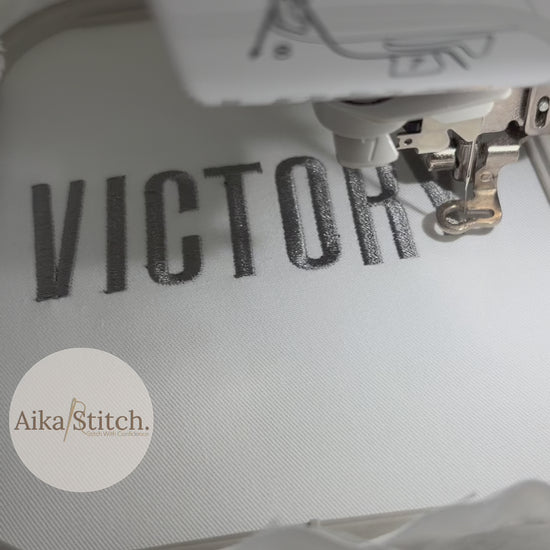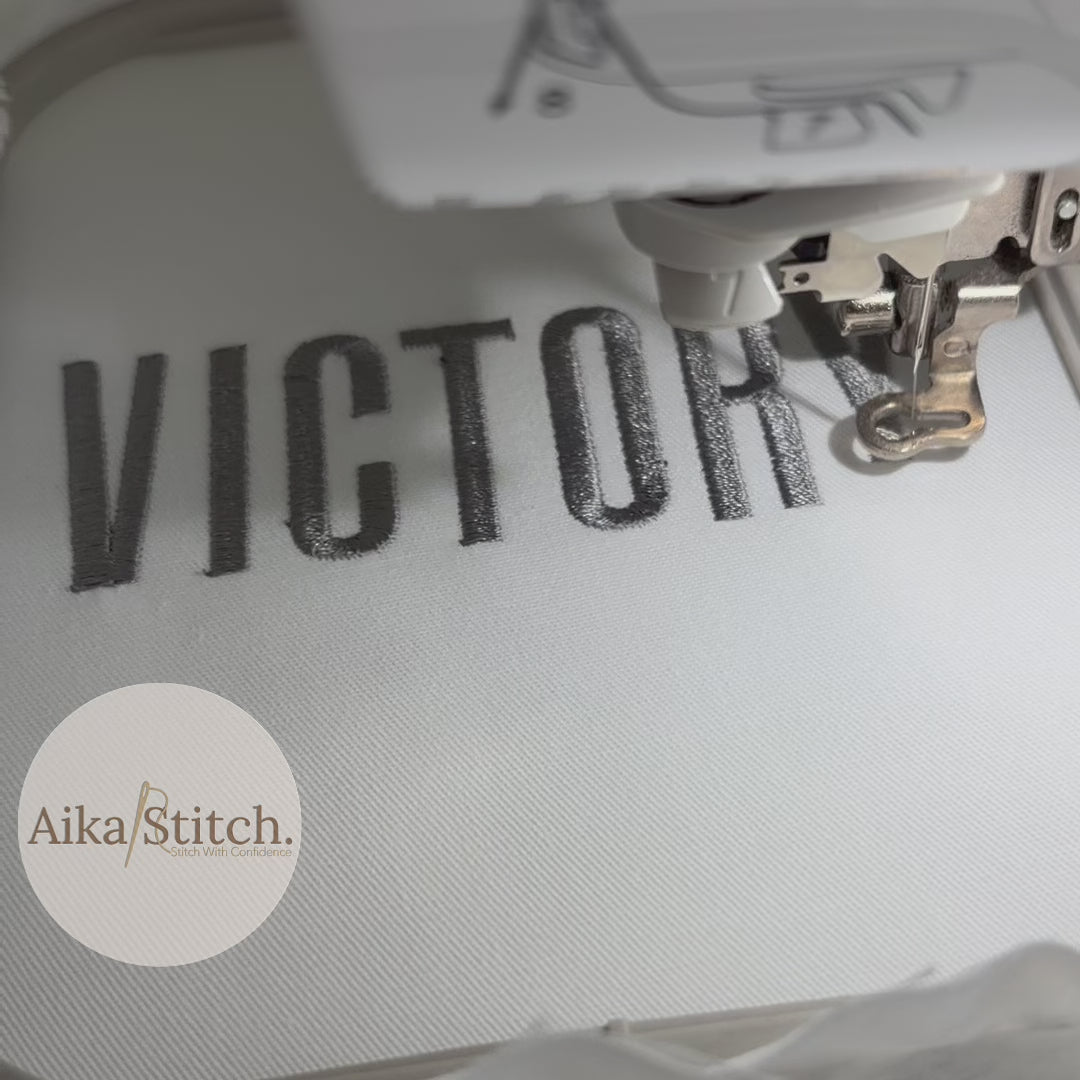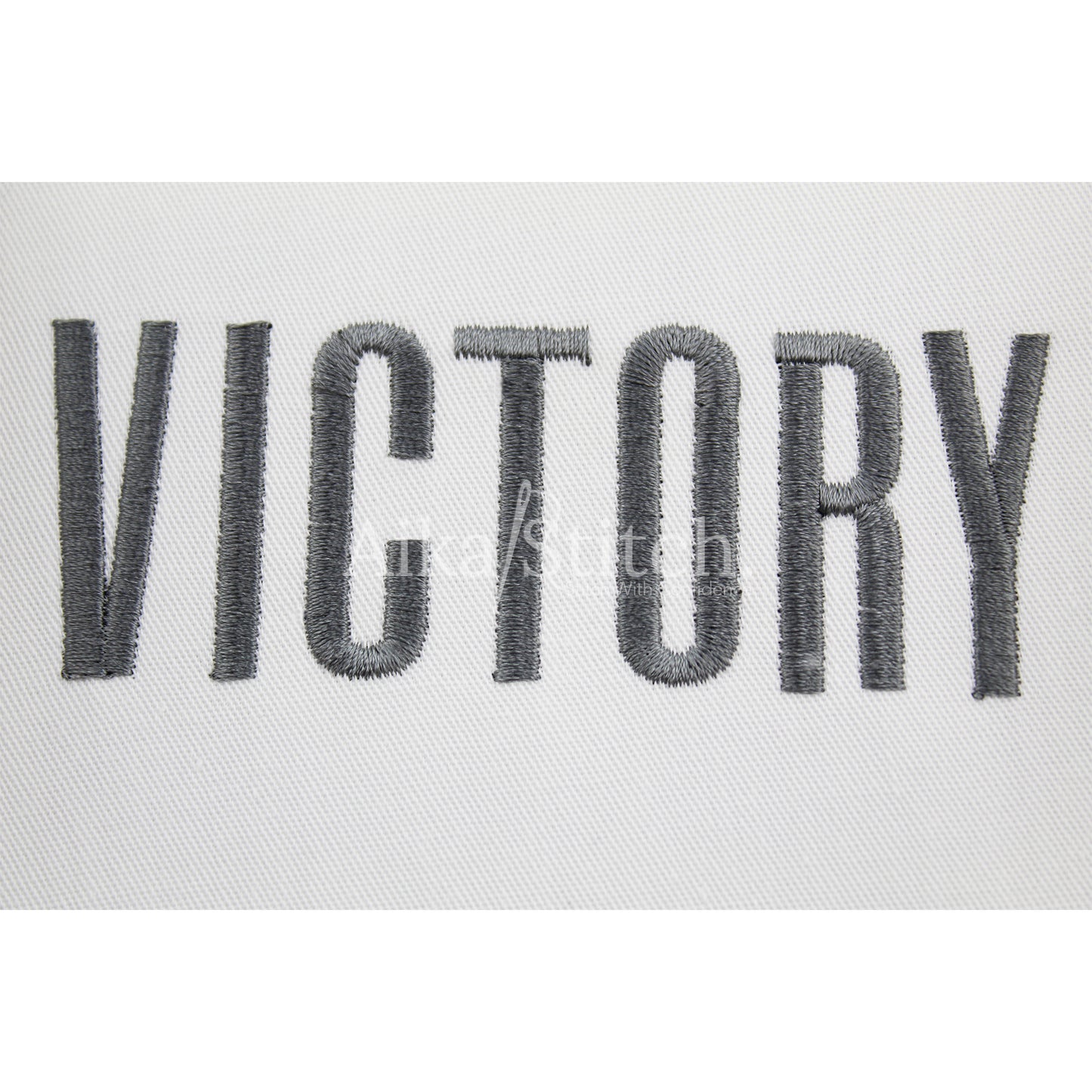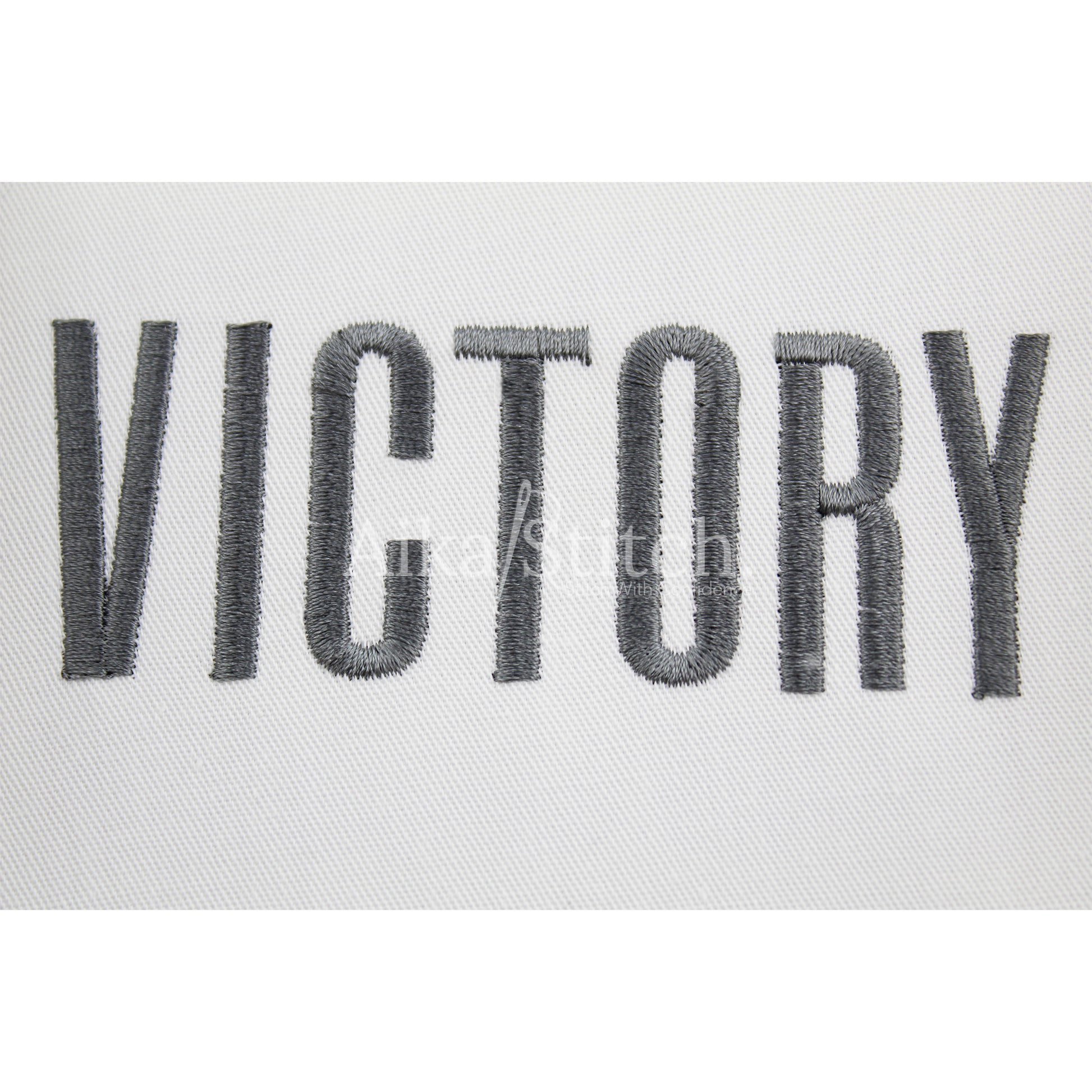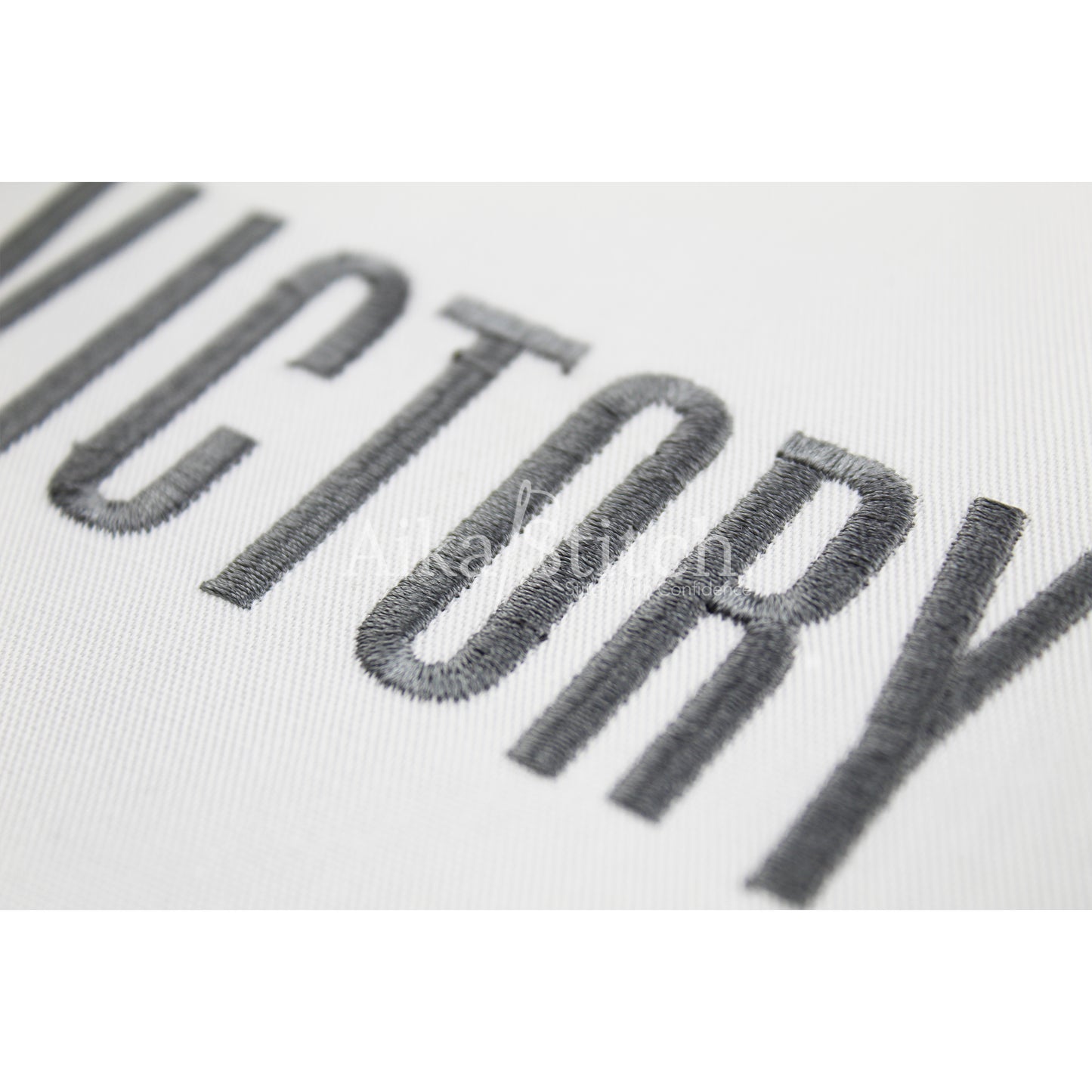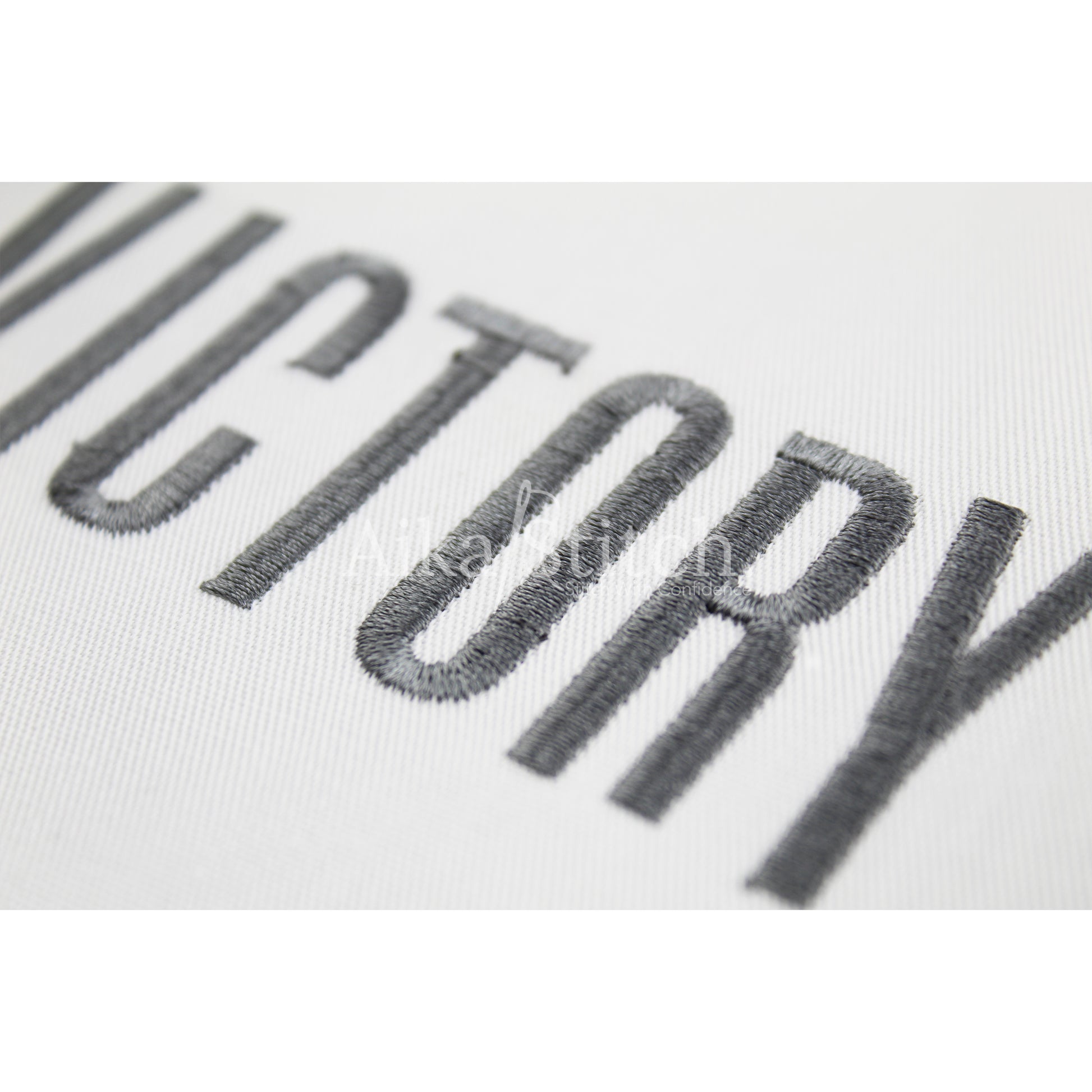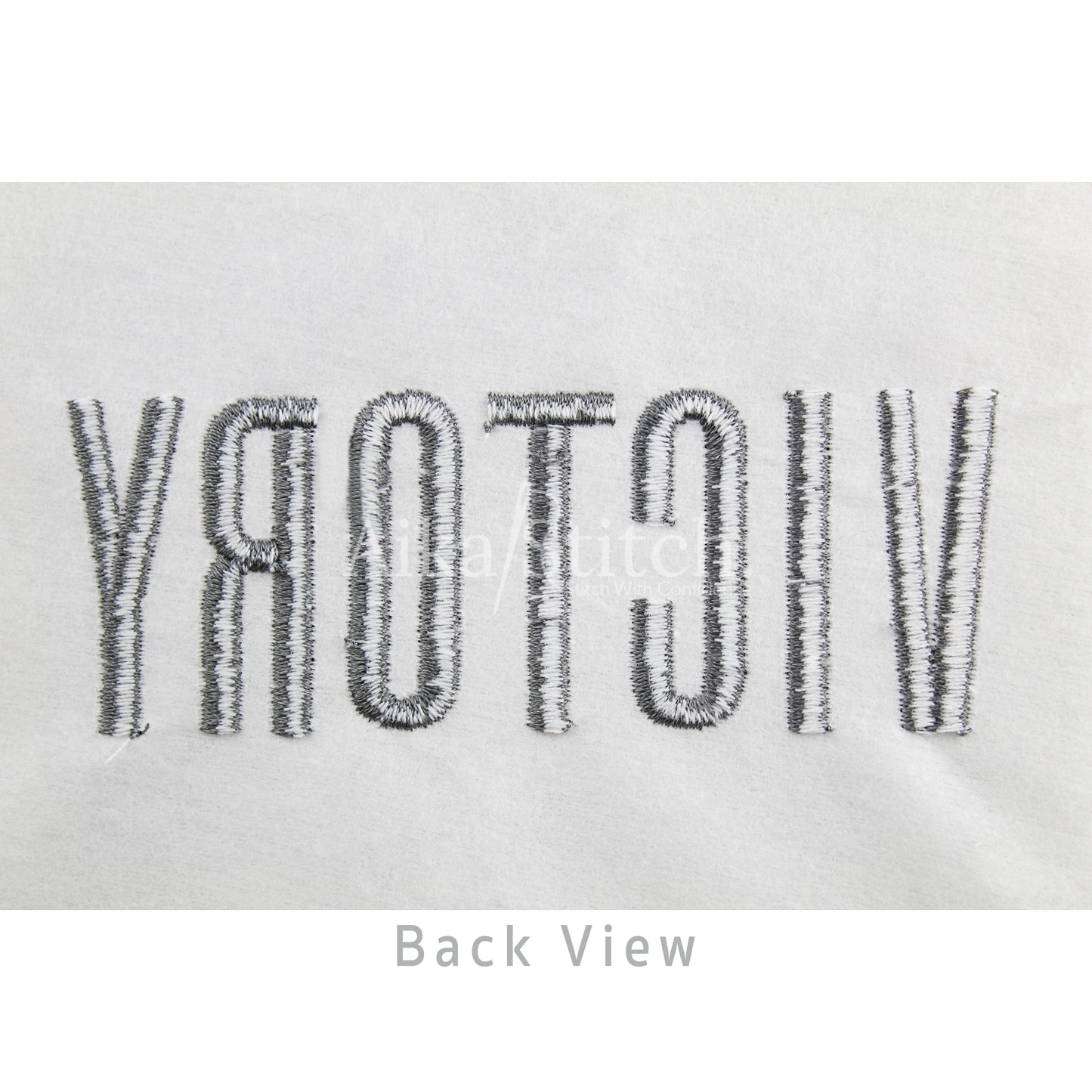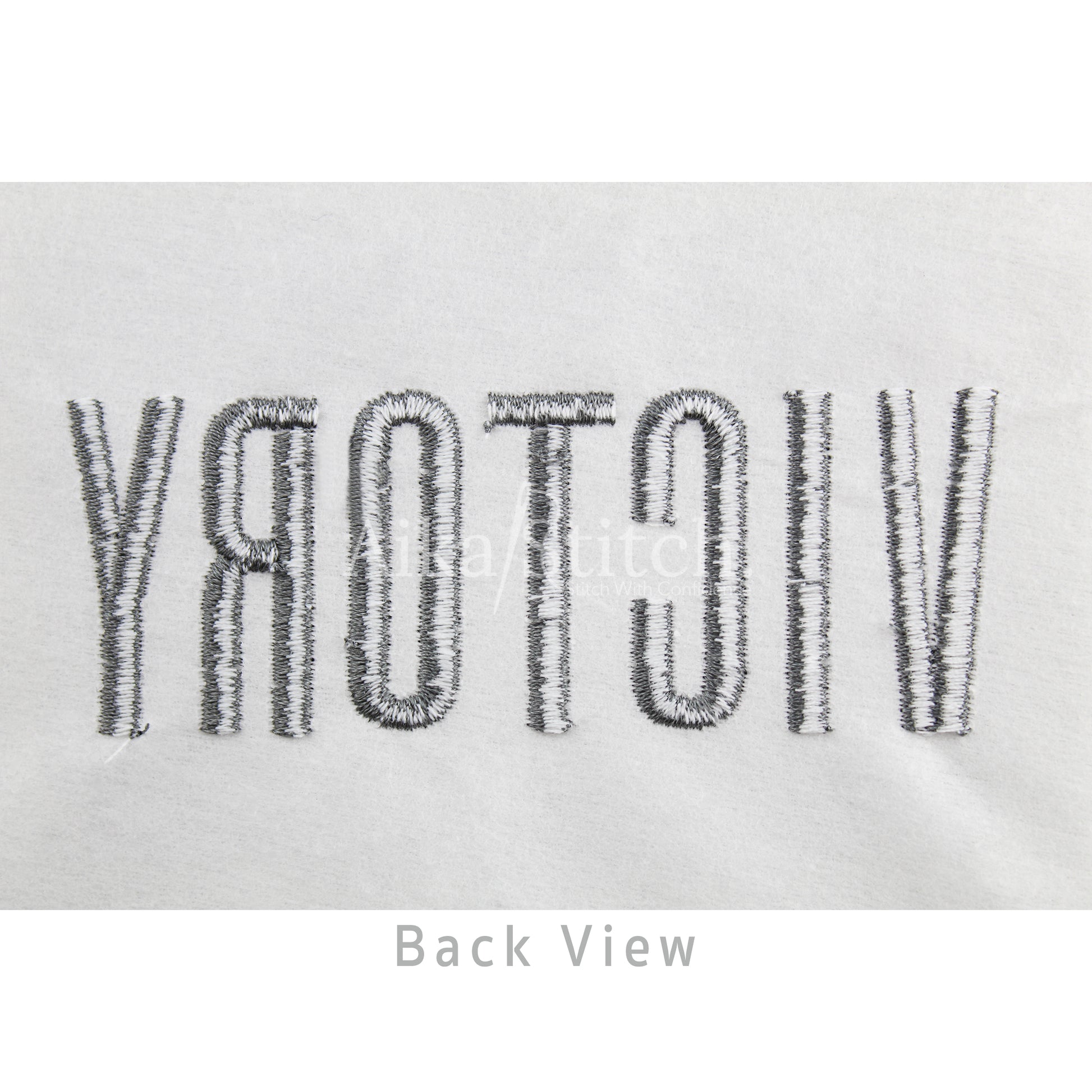
Victory Tall Modern Embroidery Font
Victory is a Simple Tall Modern machine embroidery font featuring beautiful satin stitch lettering. Perfect for shirts, towels, hats, baby gifts, monograms, and small business embroidery projects.